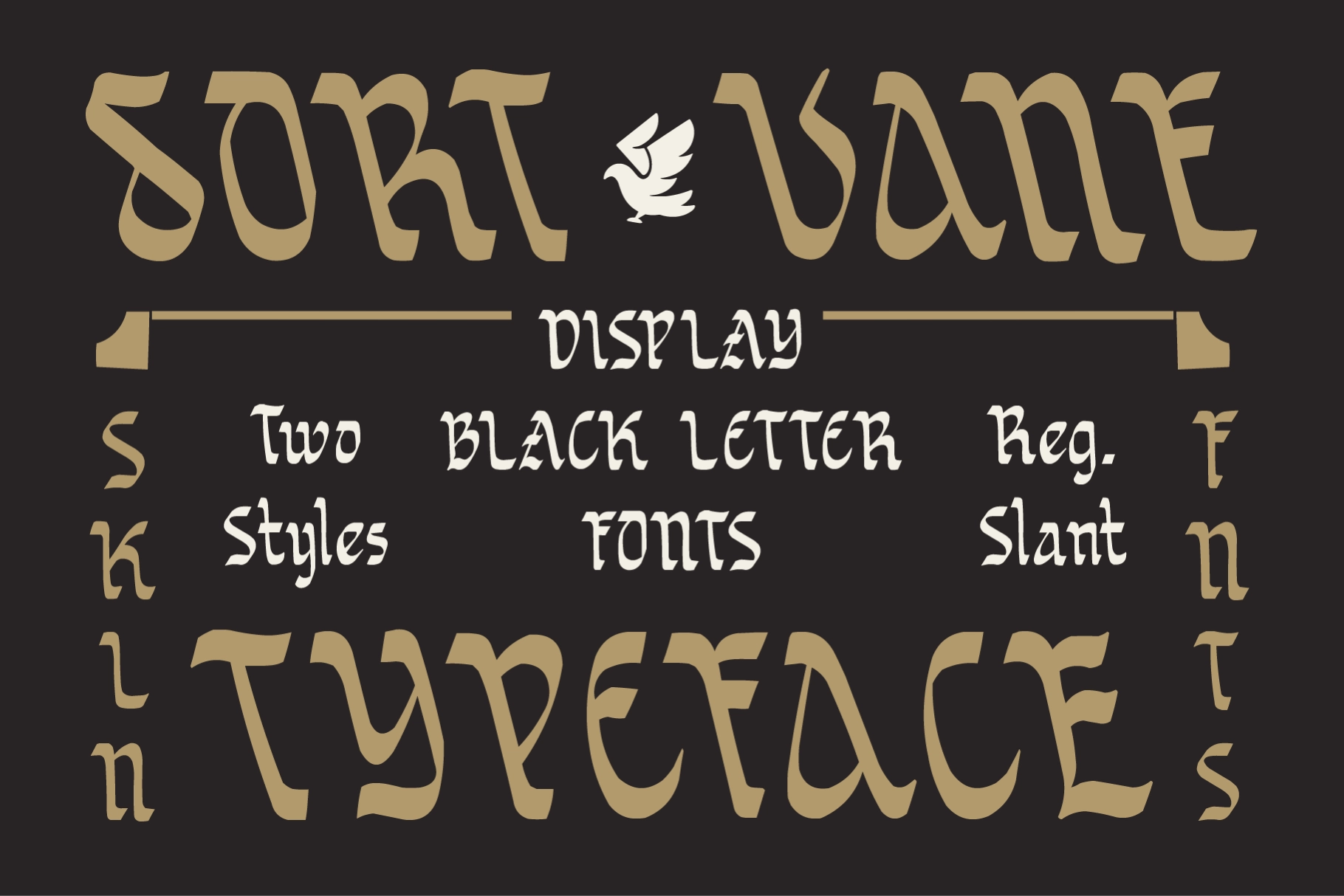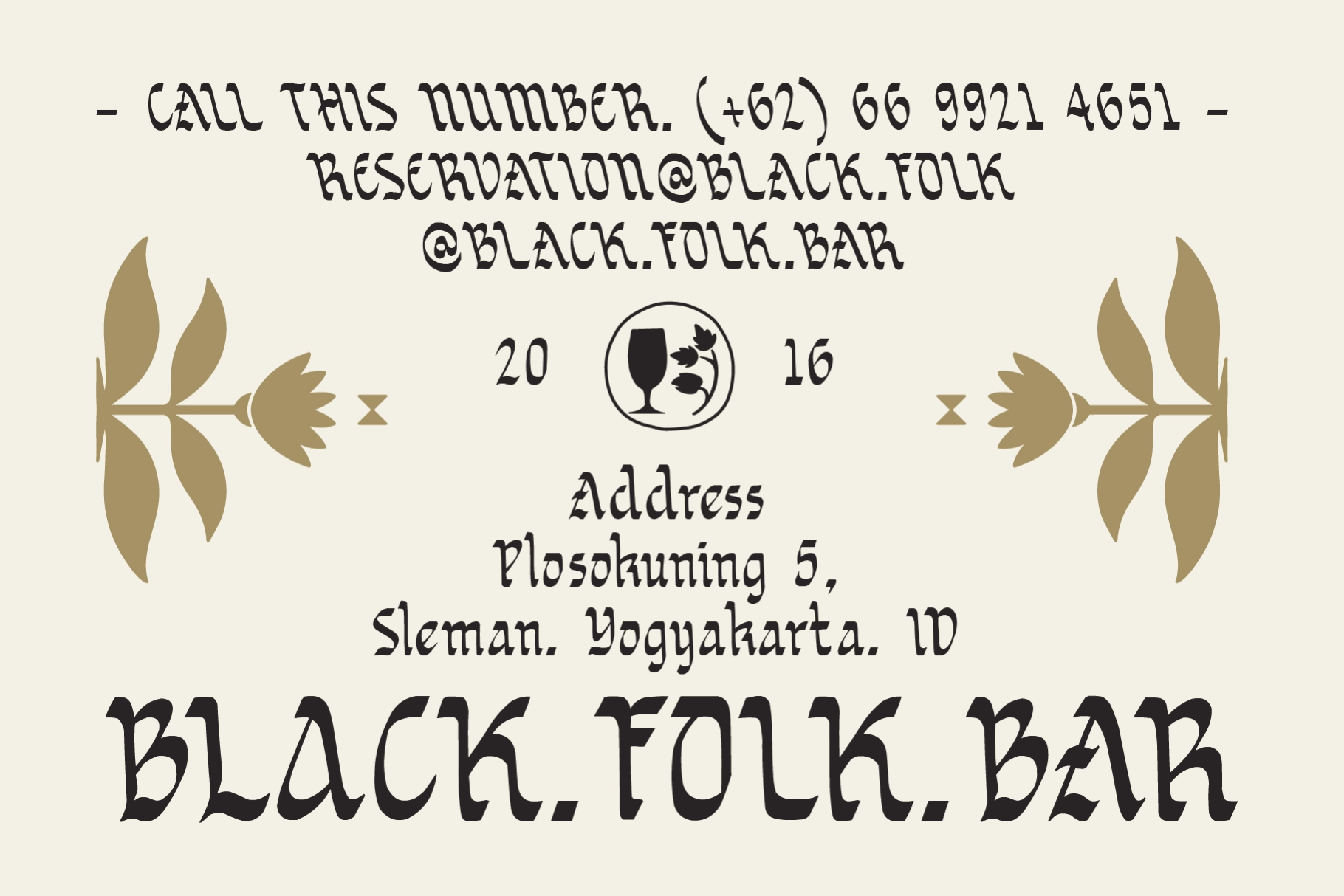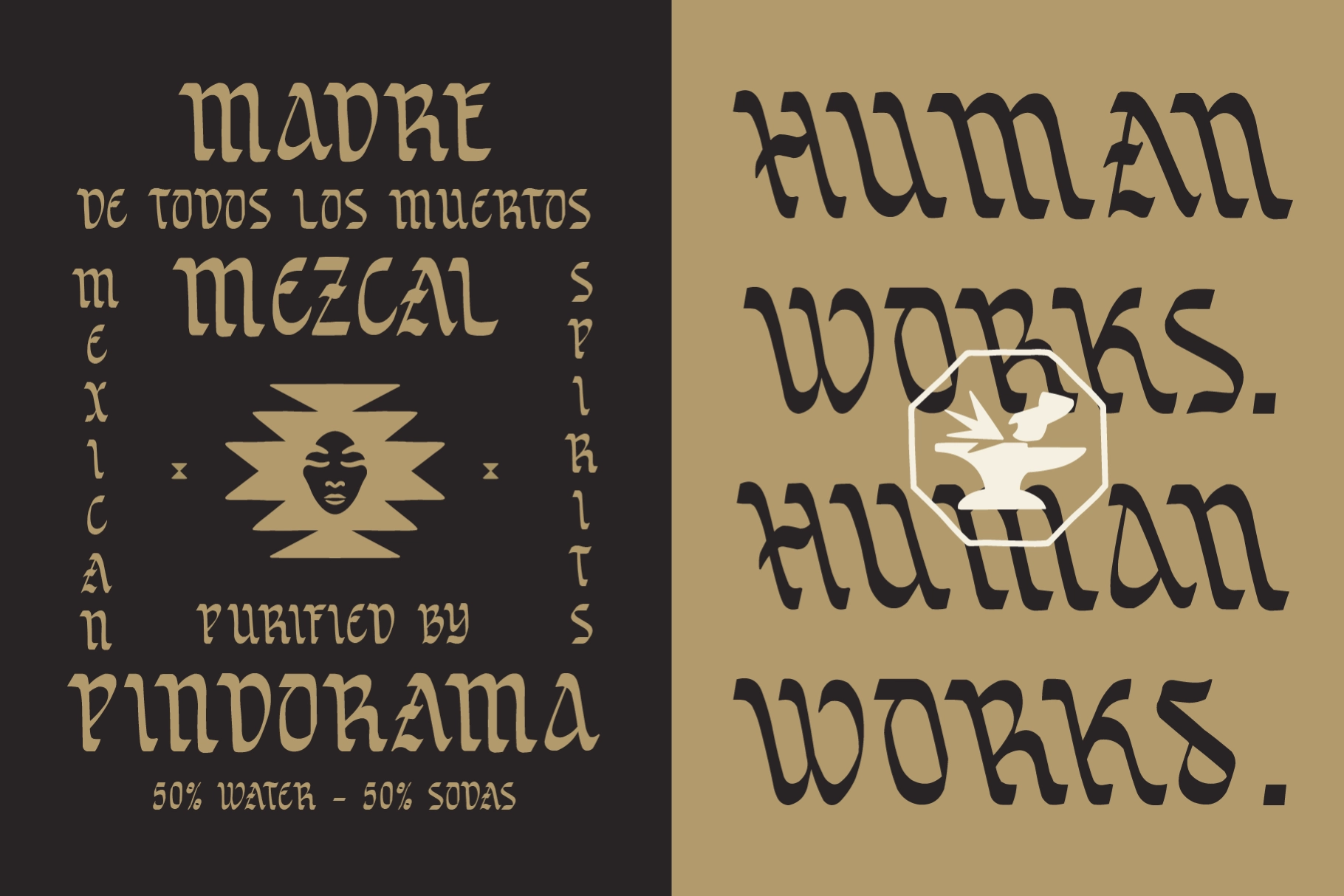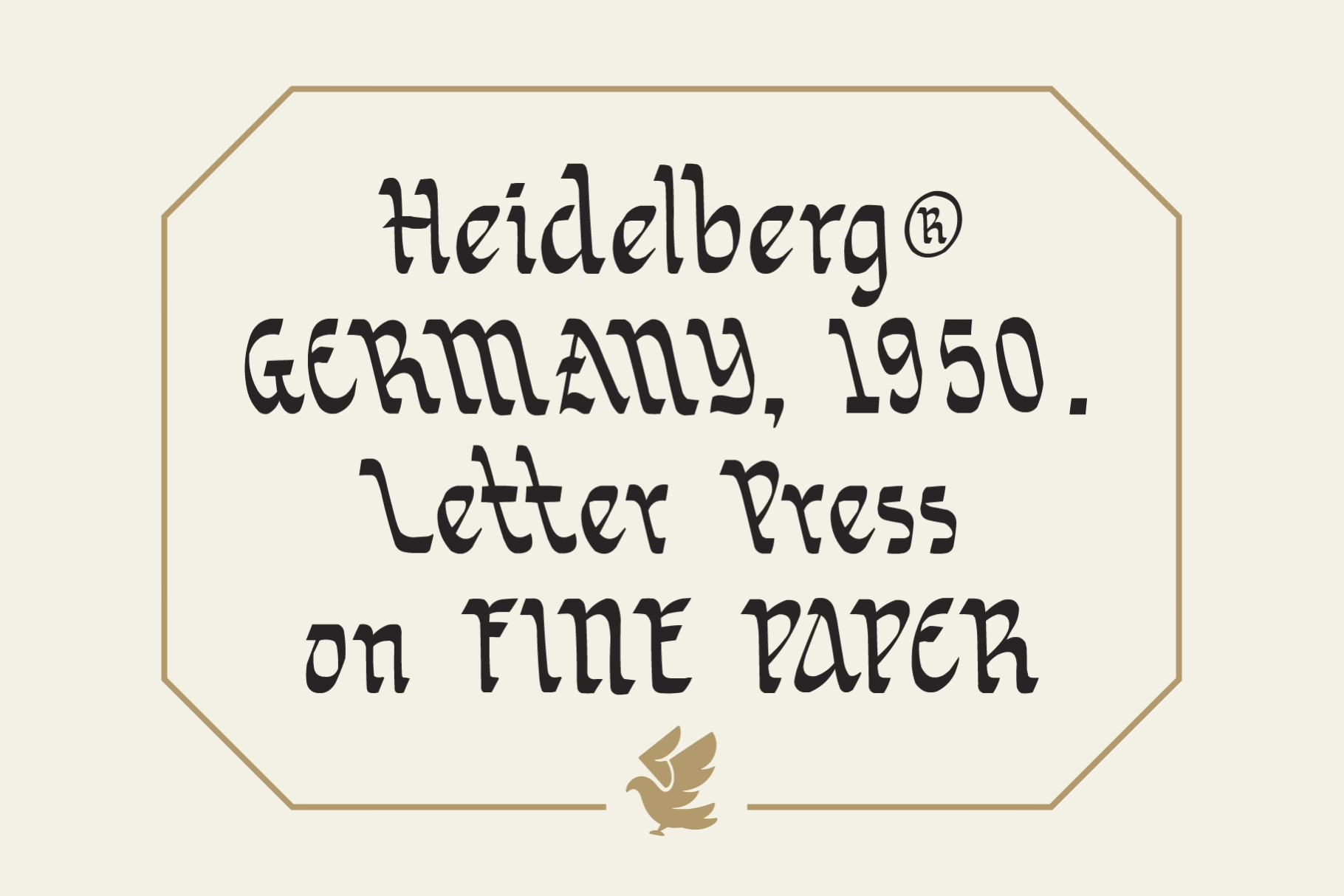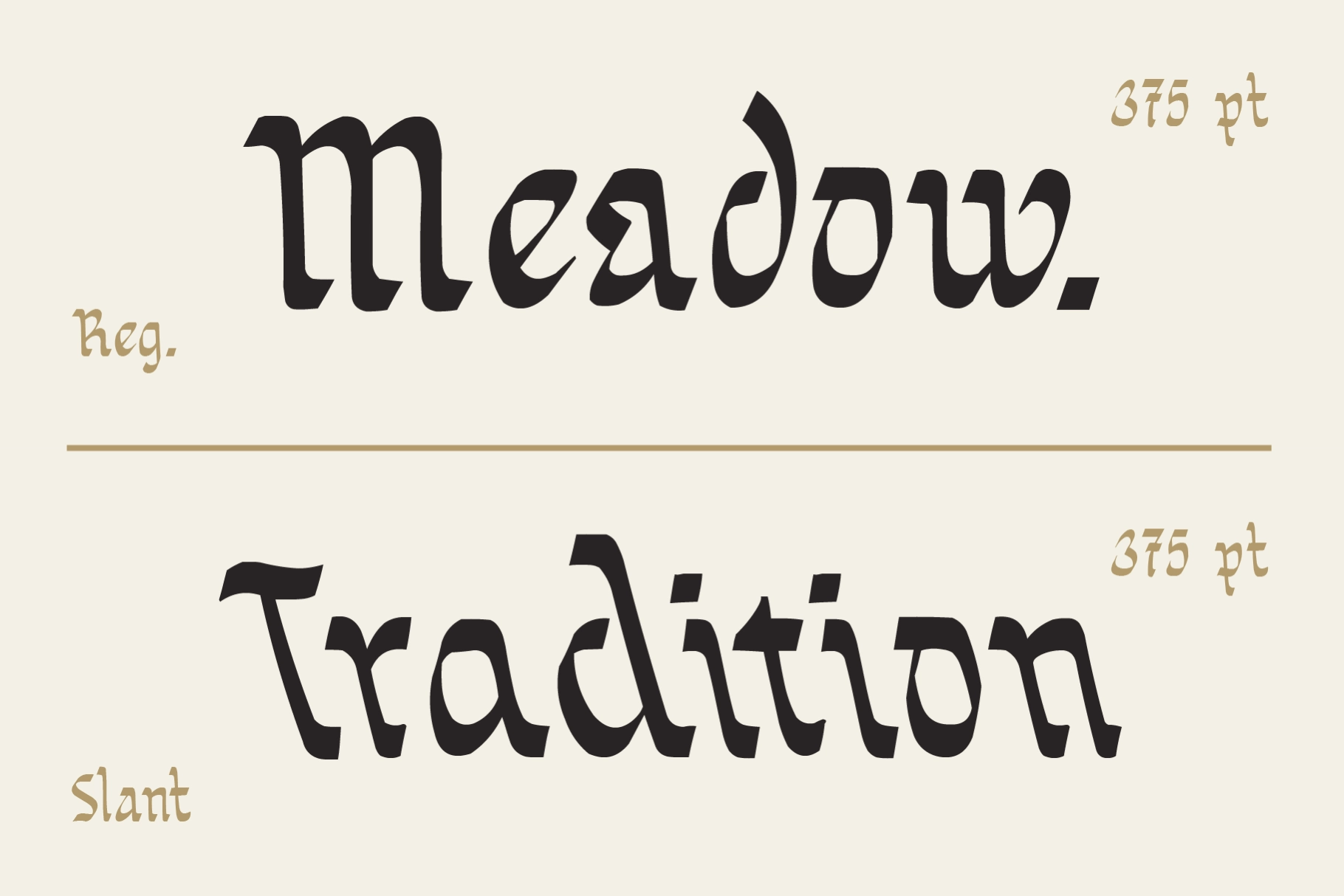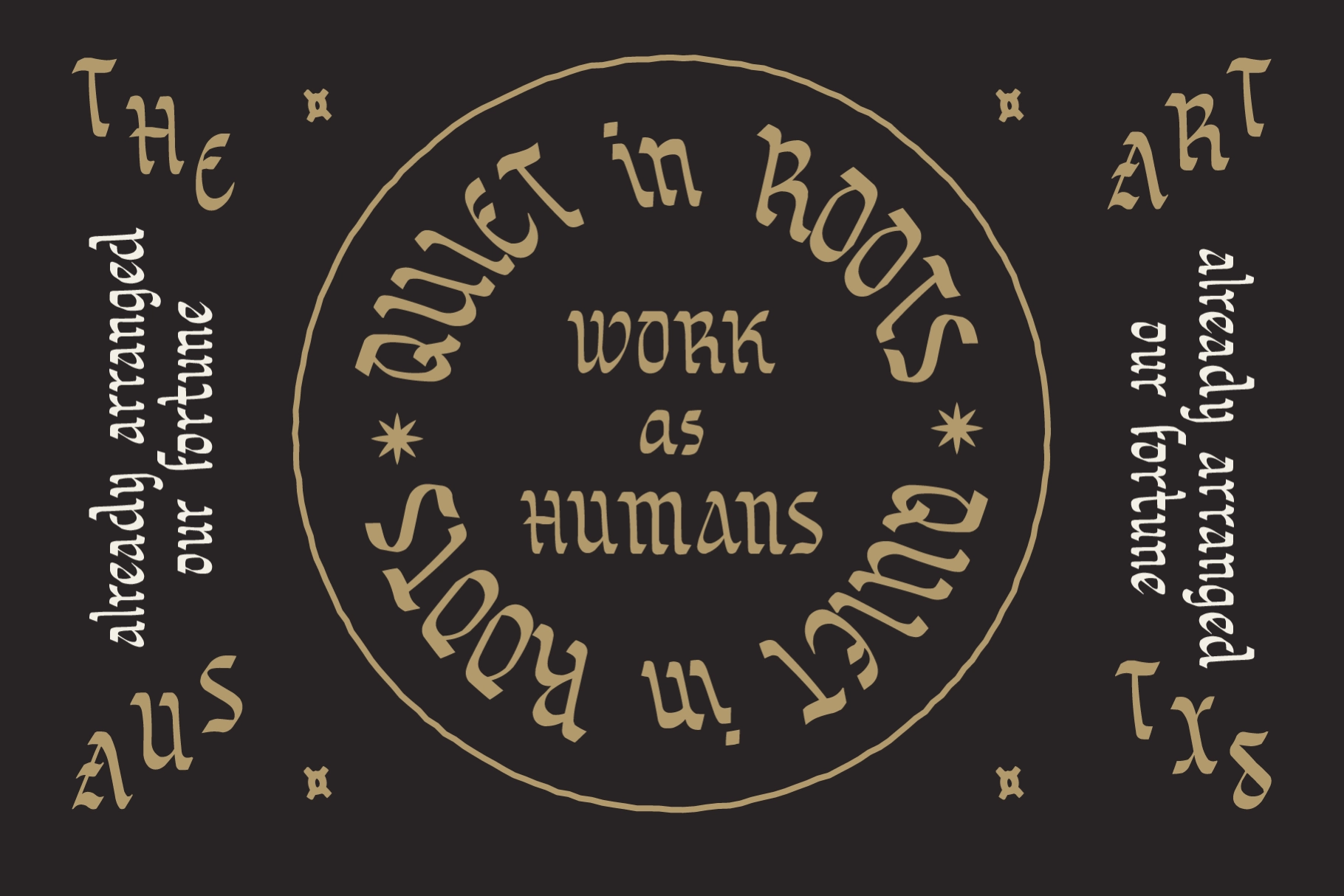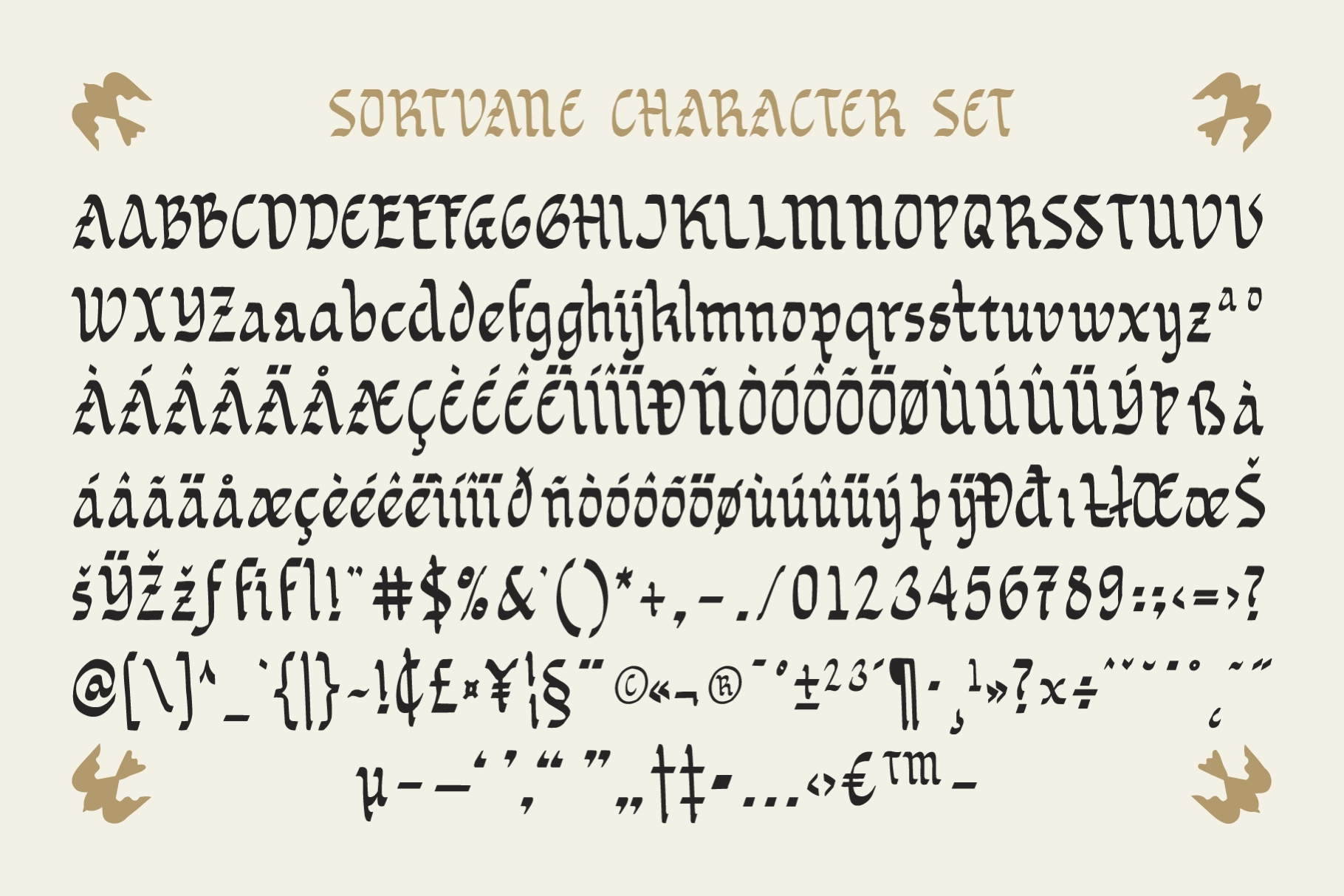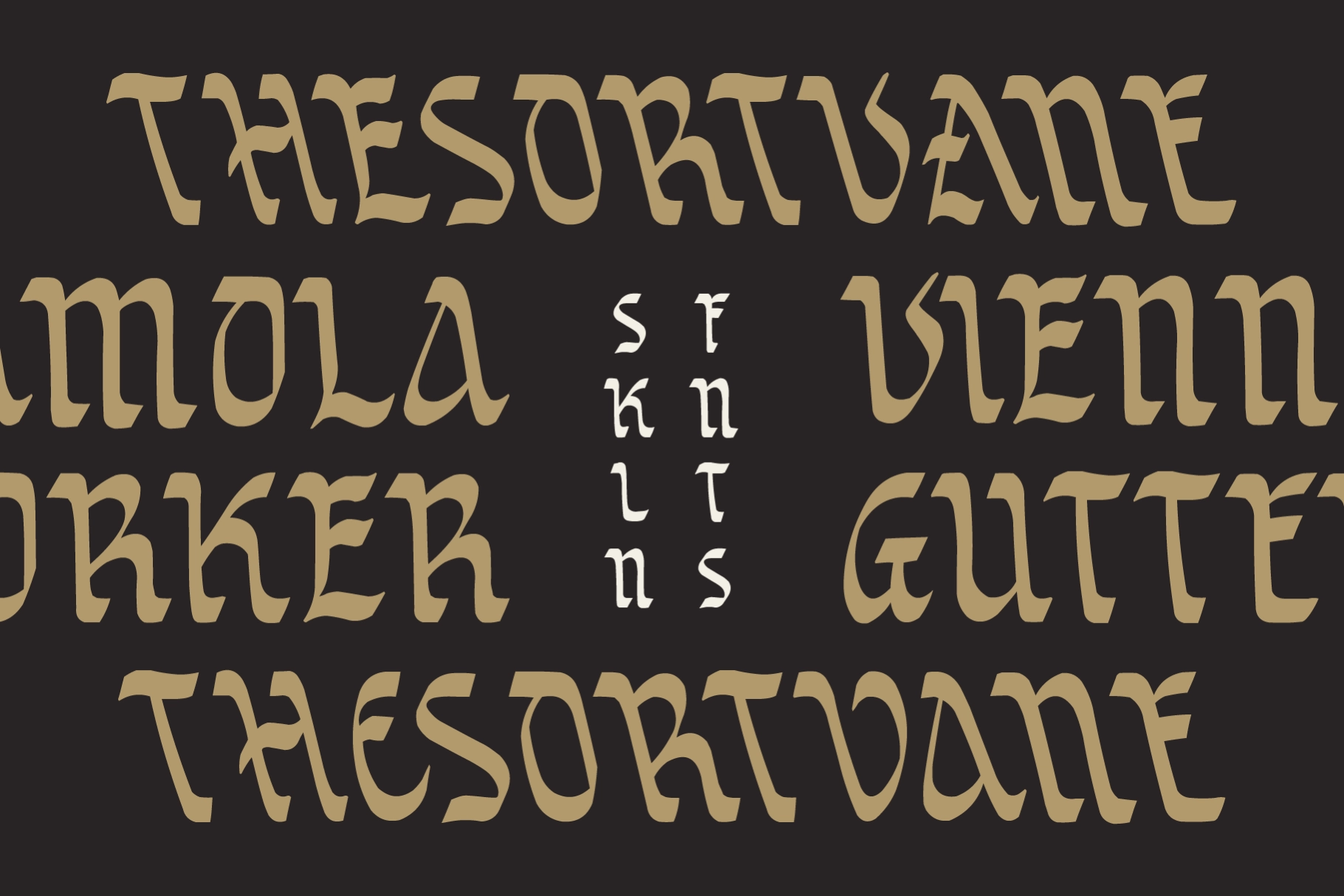
Sortvane - Handcrafted Blackletter Display Font
Sortvane is a handcrafted blackletter display font that keeps the broken, angular bones of medieval lettering but loosens the joints with rougher terminals and hand-inked irregularity. The construction reads closer to a scribe's working hand than a formal manuscript plate, so straight blackletter rigidity gives way to something warmer.
Sortvane comes in Regular and Slant, and its stylistic sets swap in alternate letterforms for a rougher or cleaner read depending on the setting. Use it for craft beverage labels, bar and restaurant branding, heritage packaging, book covers, wedding invitations, gig posters, and luxury logotypes.